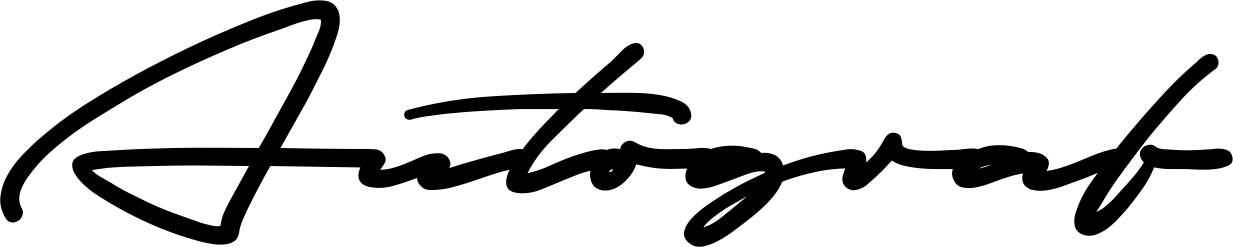
Autograf Font
When you need to show originality and prestige, this autograph font is a perfect choice for you. Autograf is coming in the script style so it’s not that readable. It can be suitable for logos, business card texts, or eve…
When you need to show originality and prestige, this autograph font is a perfect choice for you. Autograf is coming in the script style so it’s not that readable. It can be suitable for logos, business card texts, or even wedding cards. So stunning, don’t you think so? Download this luxury cursive font right now and see how stunning it appears.